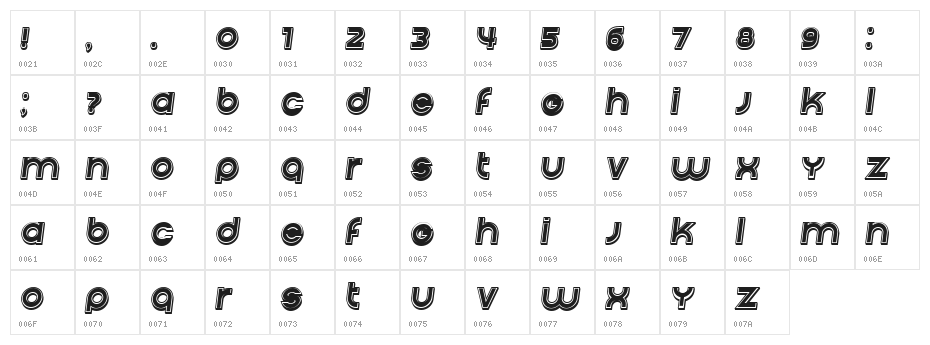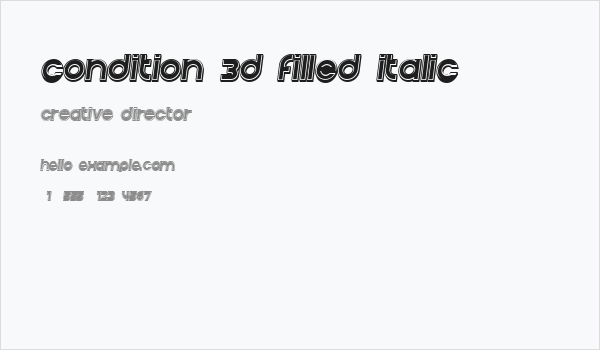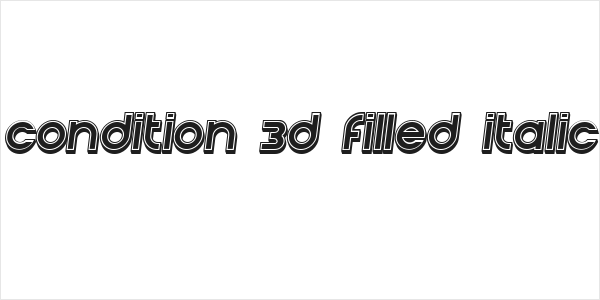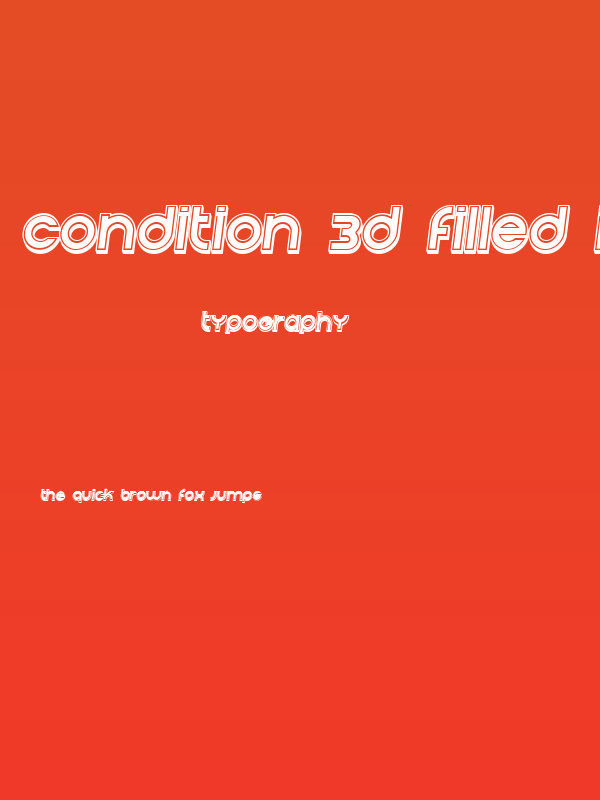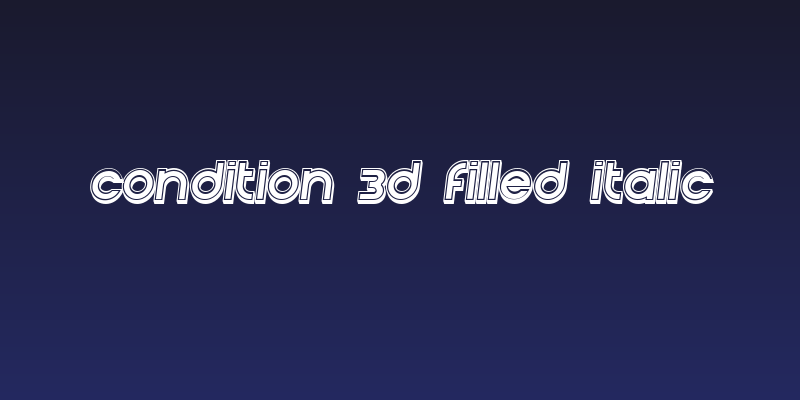
Condition 3d Filled Italic Font
Condition 3d Filled Italic Description
This font features a bold, three-dimensional appearance with a filled, italicized style. The characters are outlined with a thick black border, giving them a striking and modern look. The letters have a consistent width and height, maintaining uniformity across the alphabet. The numbers and special characters share the same bold and dynamic style, making them highly legible and visually appealing. The italic slant adds a sense of motion and energy, making it suitable for eye-catching designs.
Proposed ProjectsIdeal for posters, headlines, logos, and any design requiring a bold and modern aesthetic.